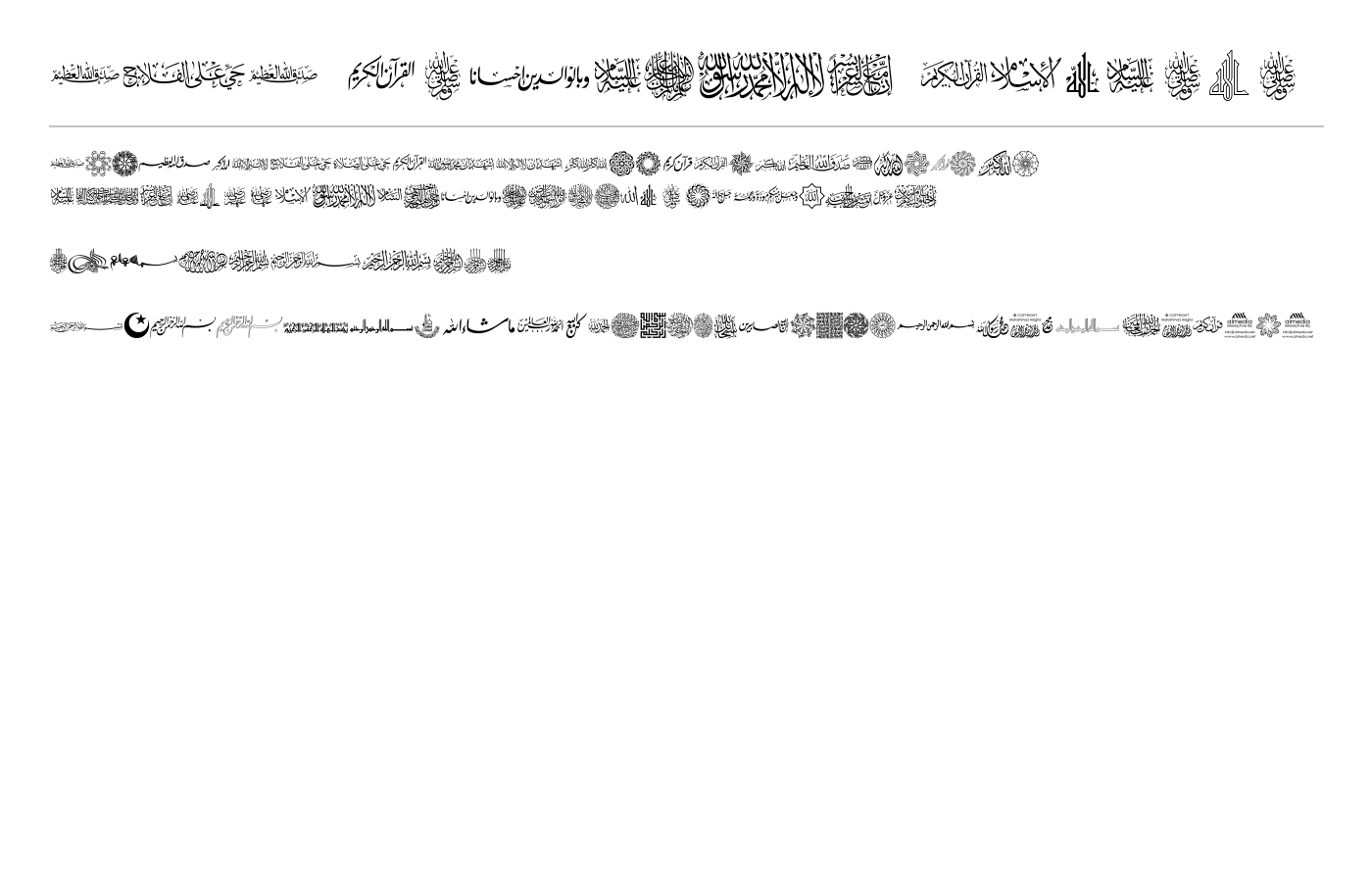
AGA Islamic Phrases Font is an elegant and intricate calligraphic typeface designed to capture the beauty of traditional Islamic script. Its delicate, flowing strokes and detailed ornamental shapes create a sophisticated and reverent feel, making it ideal for religious texts, cultural designs, and formal branding that seeks to evoke spirituality and heritage. This font works best in decorative headings, logos, and special print projects where a refined and authentic touch is desired.
AGA Islamic Phrases Font